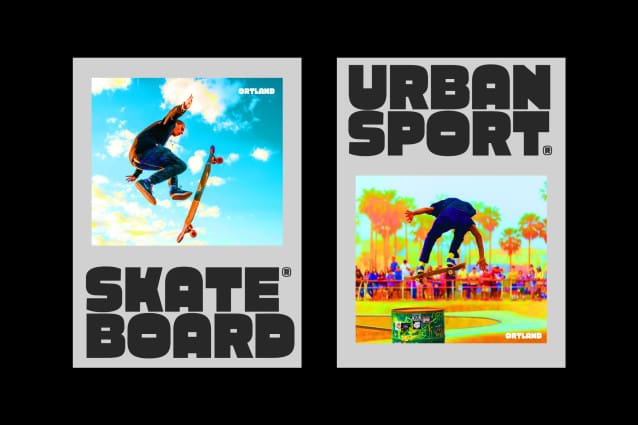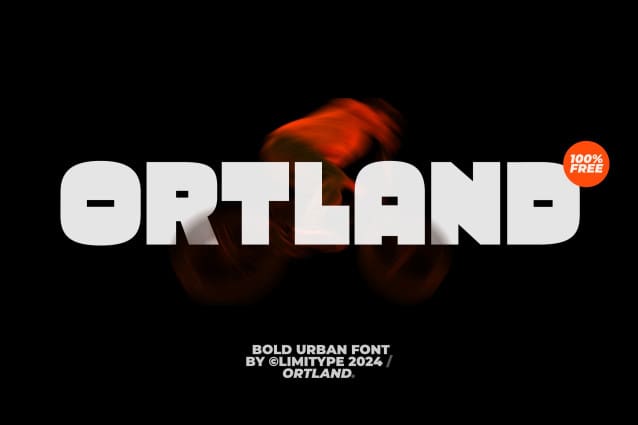
Ortland Font is a display font made in an urban style with a bold and modern impression, ortland is equipped with uppercase, lowercase, numbers, symbols and is multilingual.
| Designer Name: | limitype |
| Classification: | Display Fonts, Sans Serif Fonts |